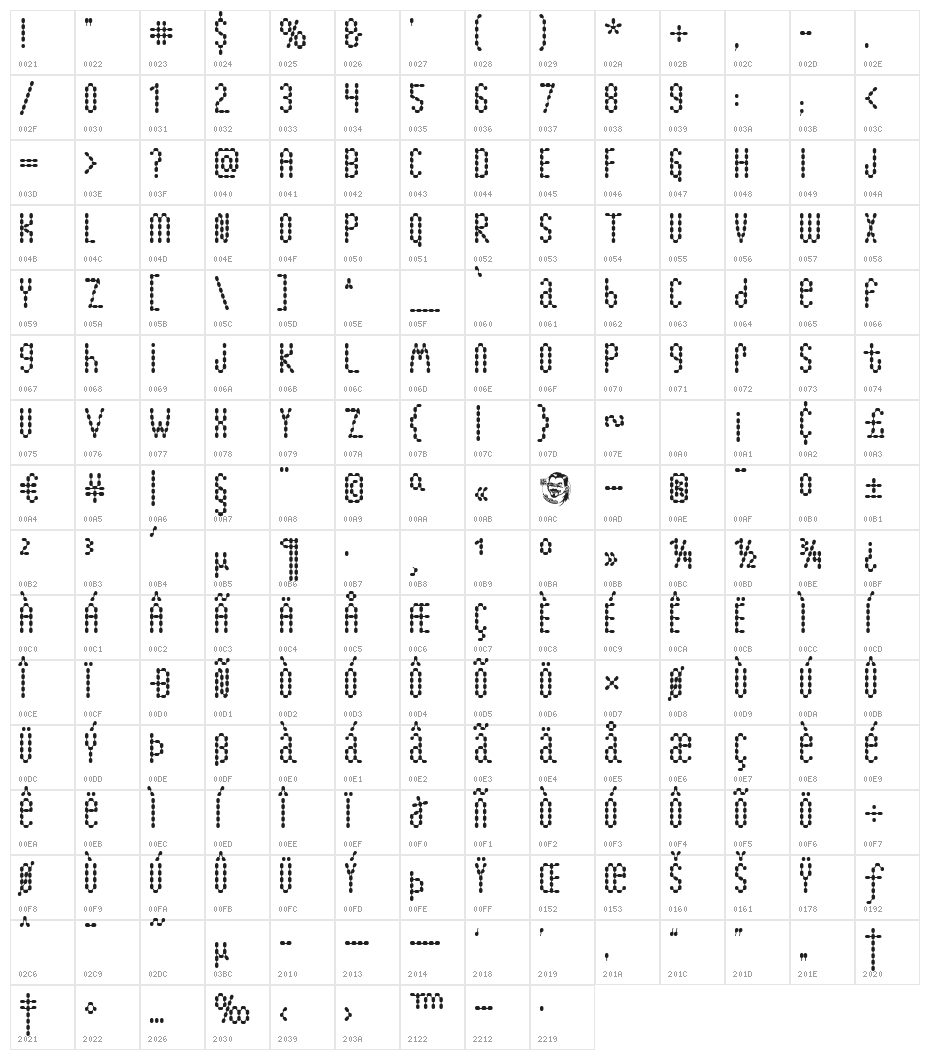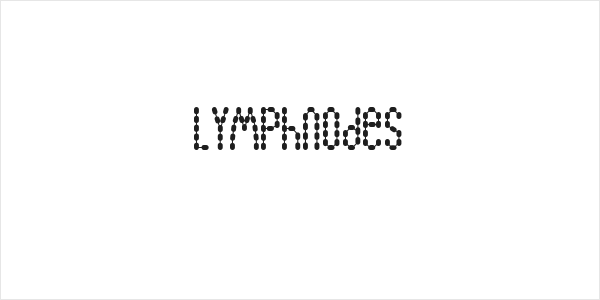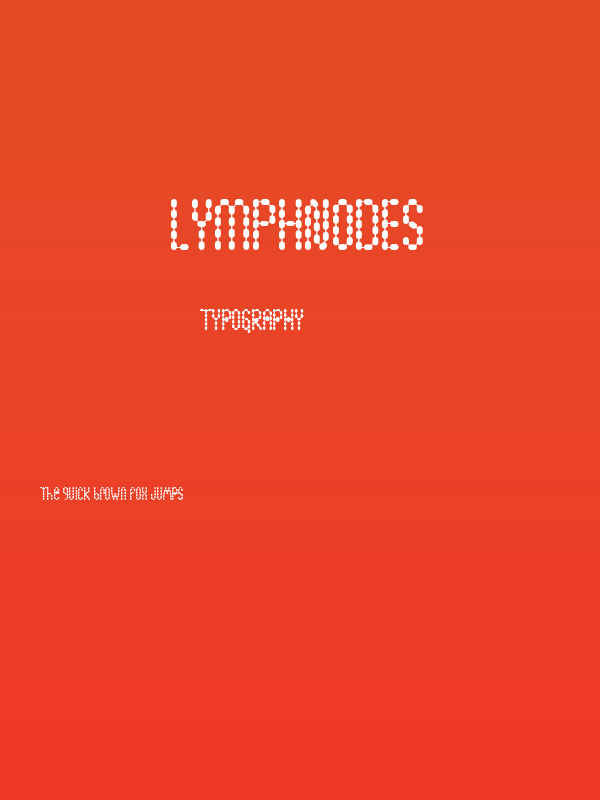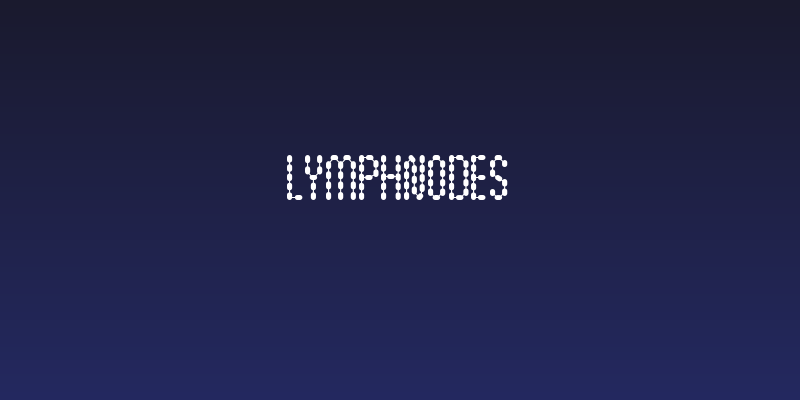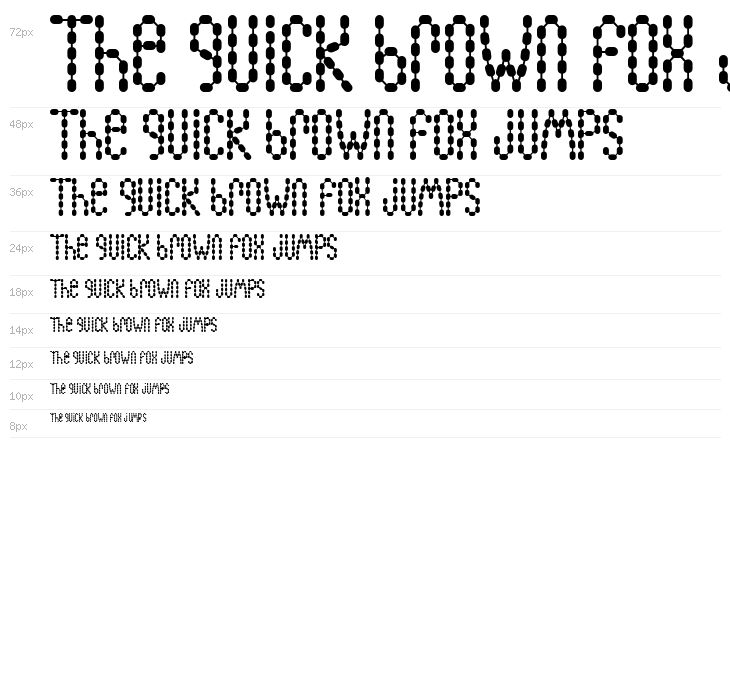
Lymphnodes Font
Lymphnodes Description
This font features a unique design where each character is constructed from a series of connected dots, creating a playful and modern appearance. The geometric arrangement of the dots forms clear and recognizable letters and numbers, while maintaining a consistent visual rhythm across the entire set. This style gives the font a digital or pixelated feel, reminiscent of early computer graphics or LED displays. The uniformity in dot size and spacing ensures readability while adding a decorative touch. The font includes both uppercase and lowercase letters, numerals, and a variety of special characters, making it versatile for various design needs.
| Proposed Projects | Ideal for digital art, tech-themed designs, educational materials, or any project seeking a modern, playful look. |